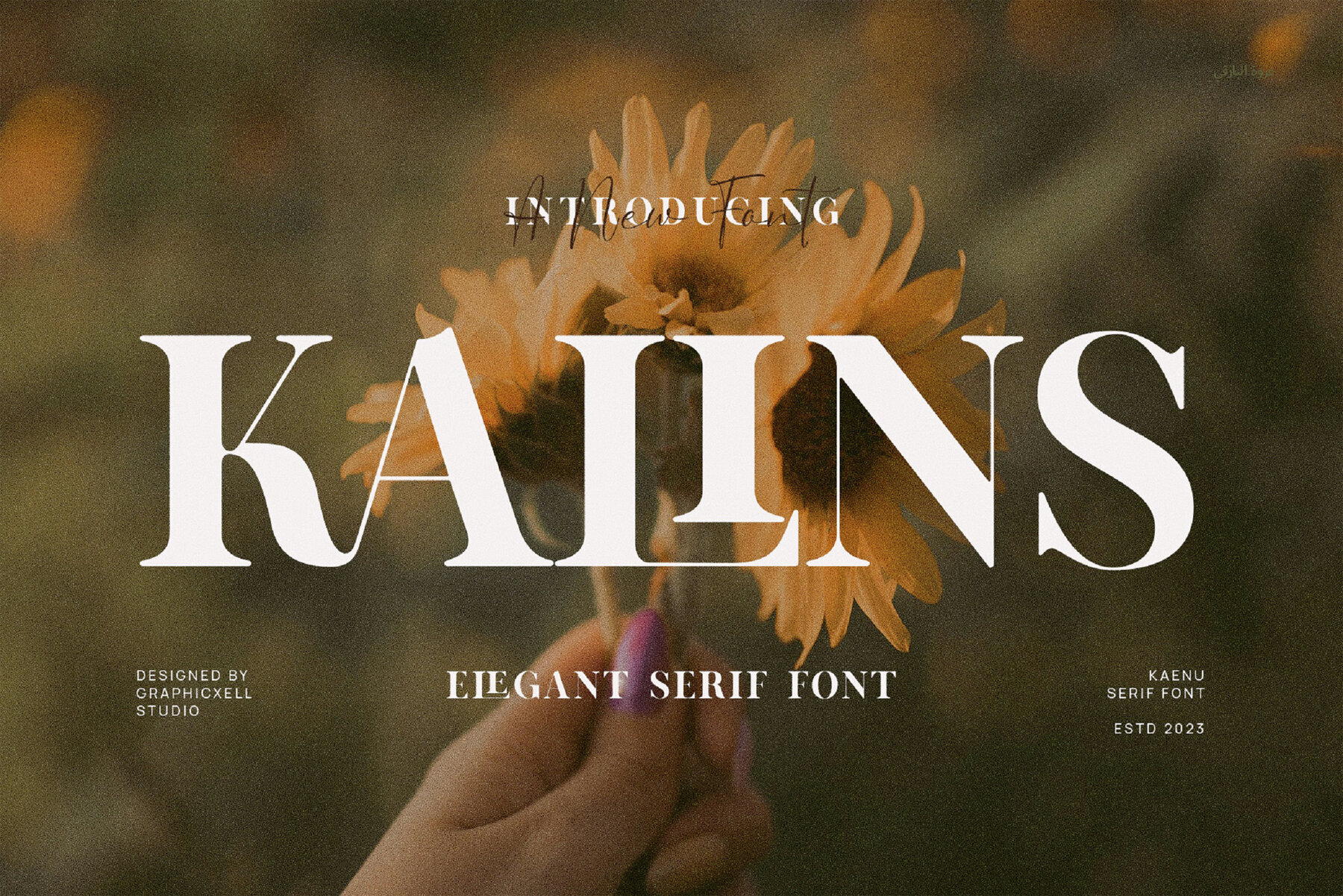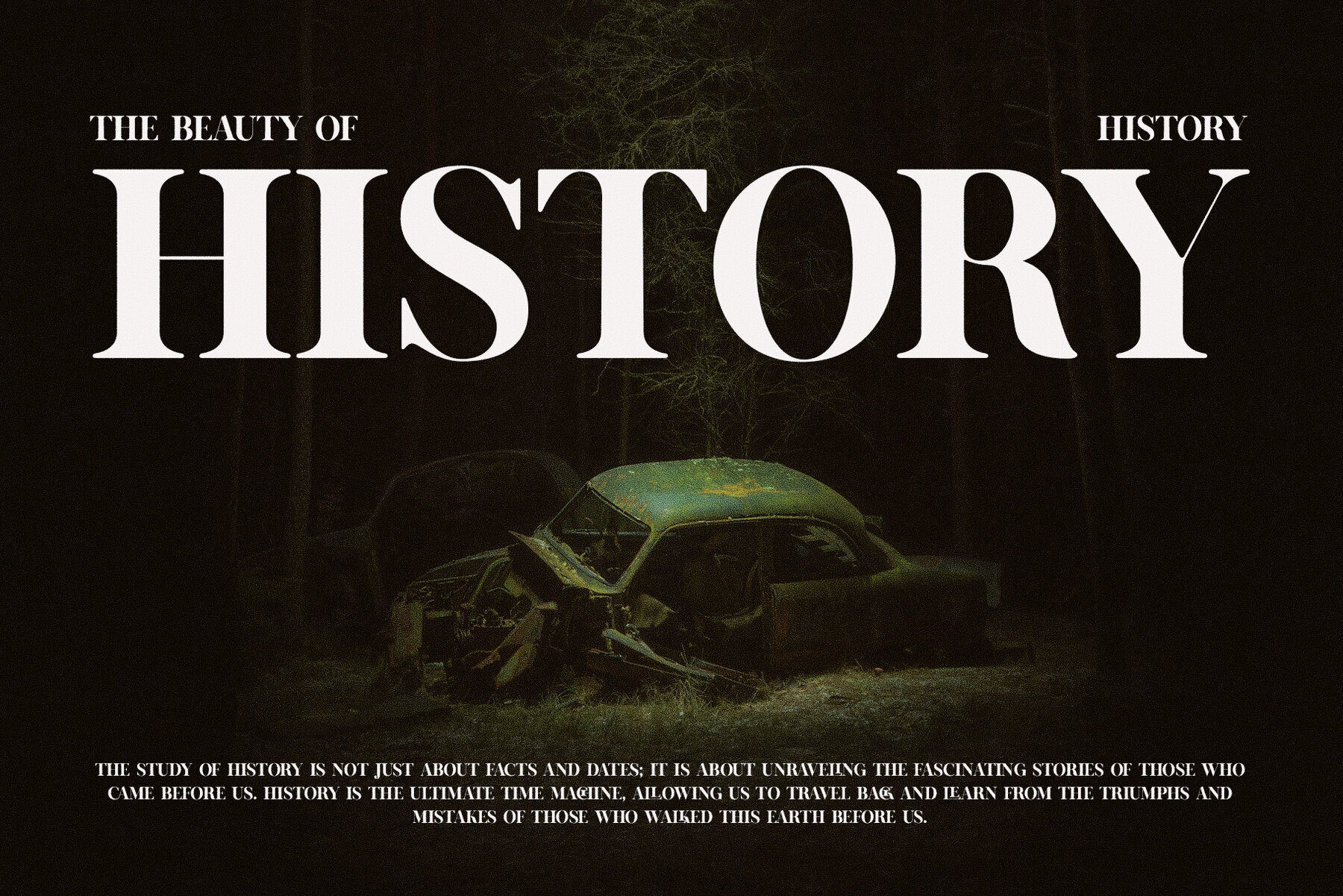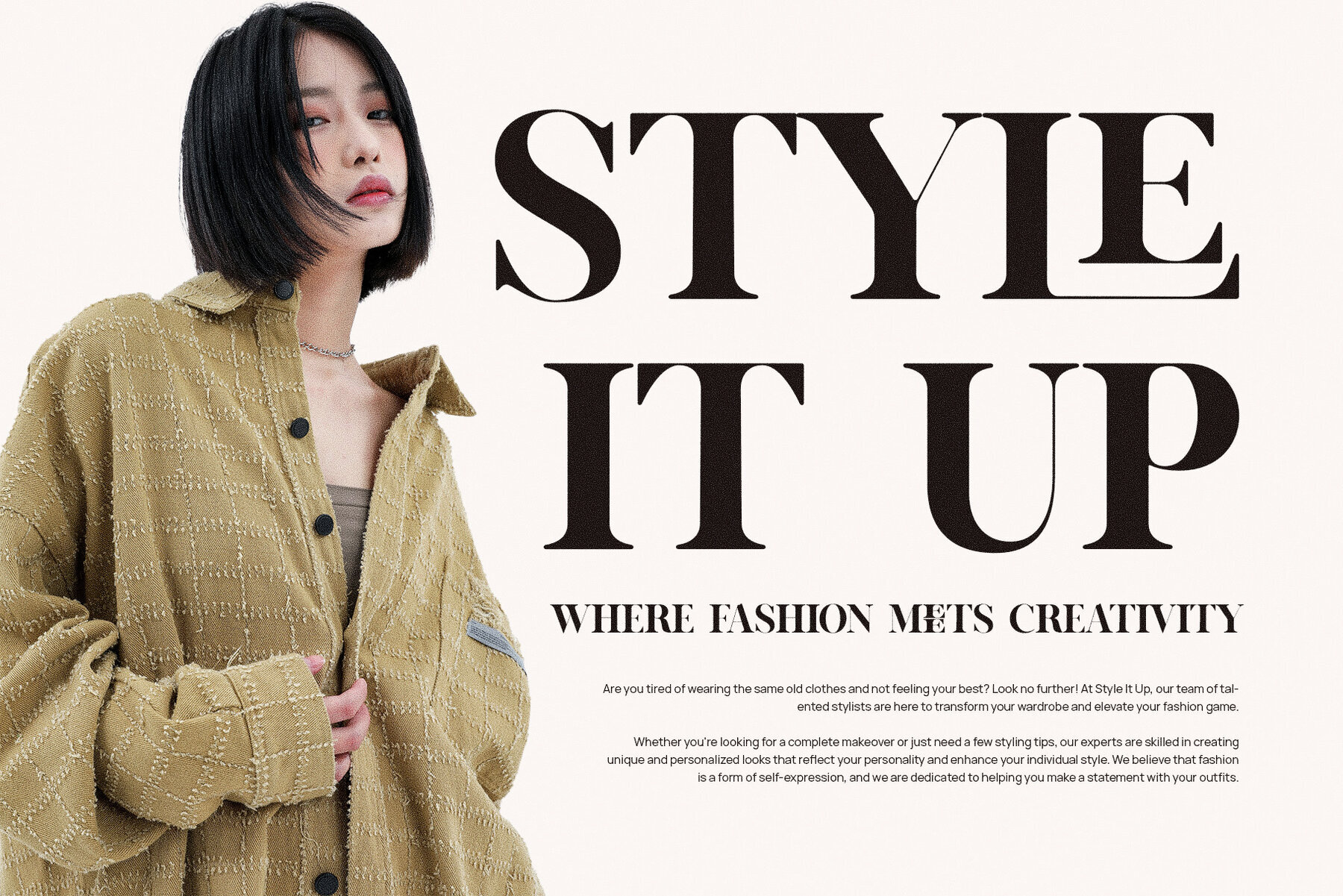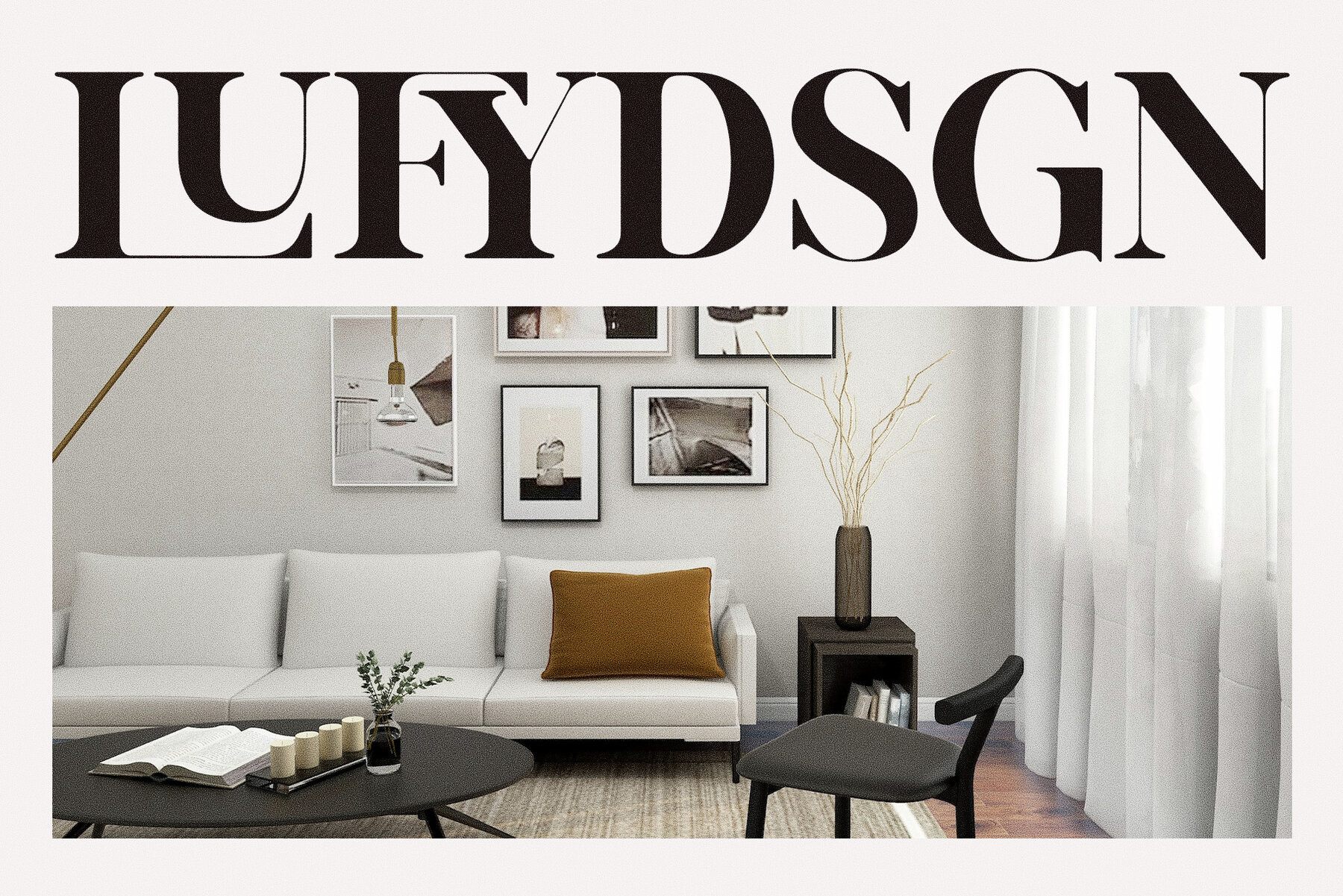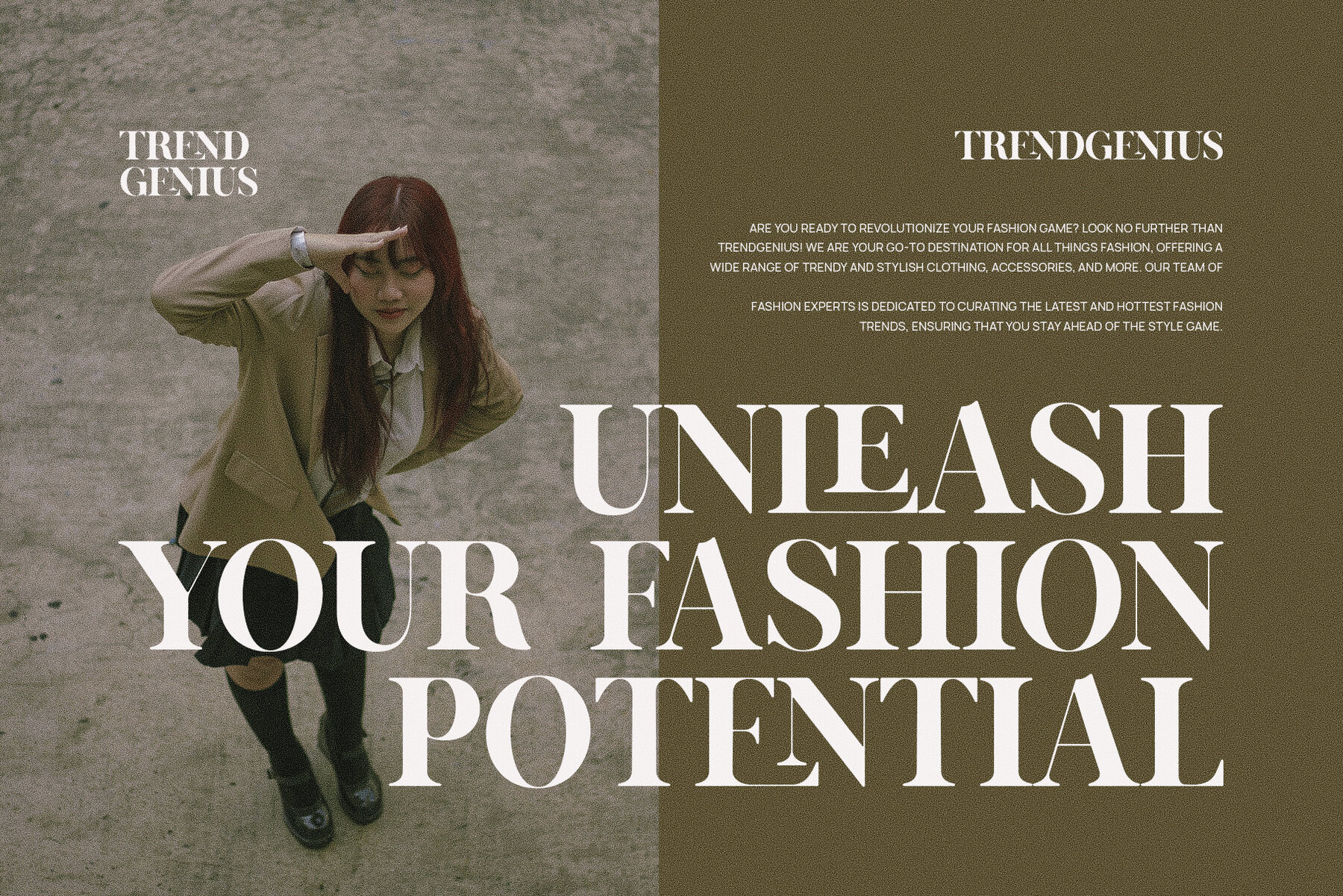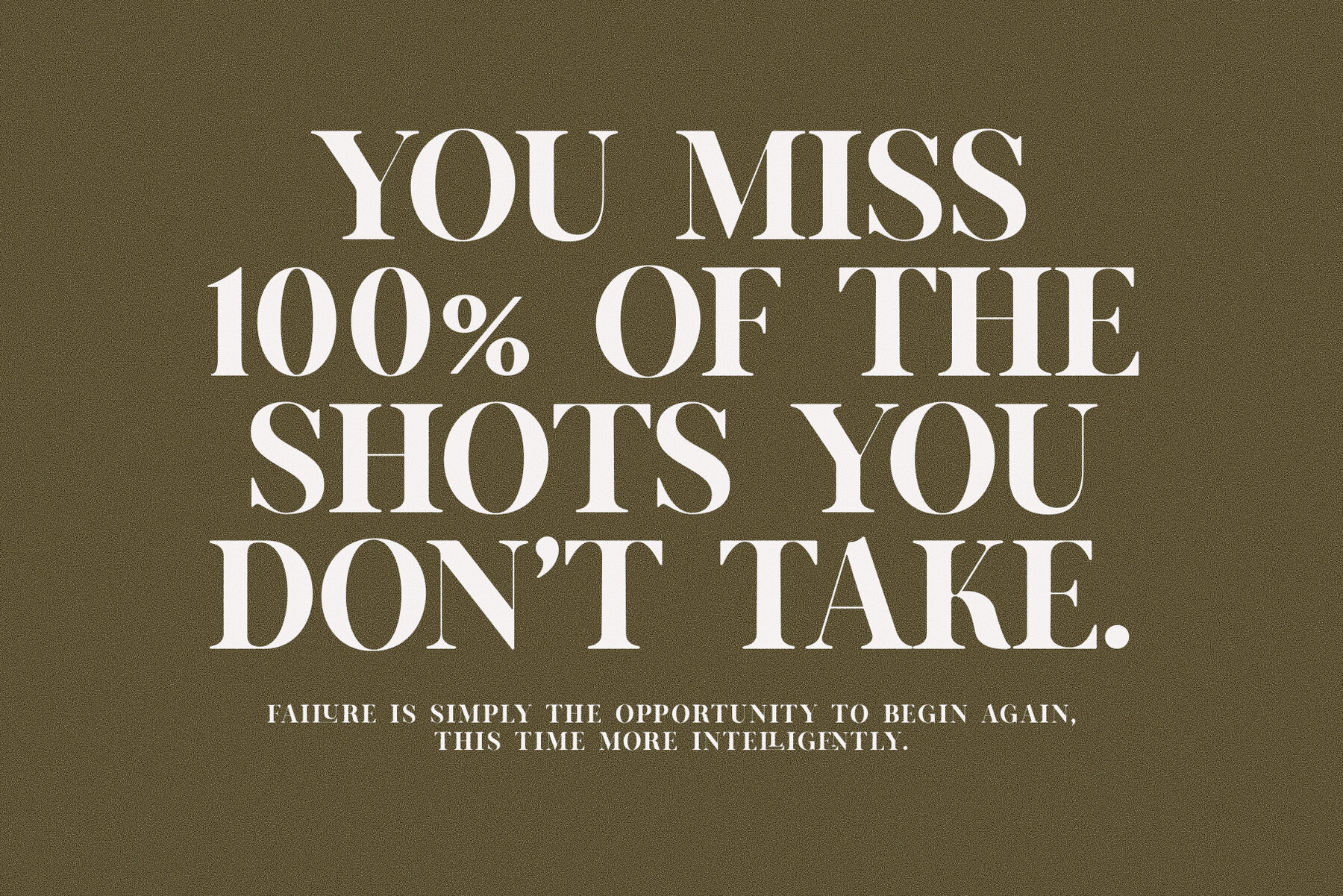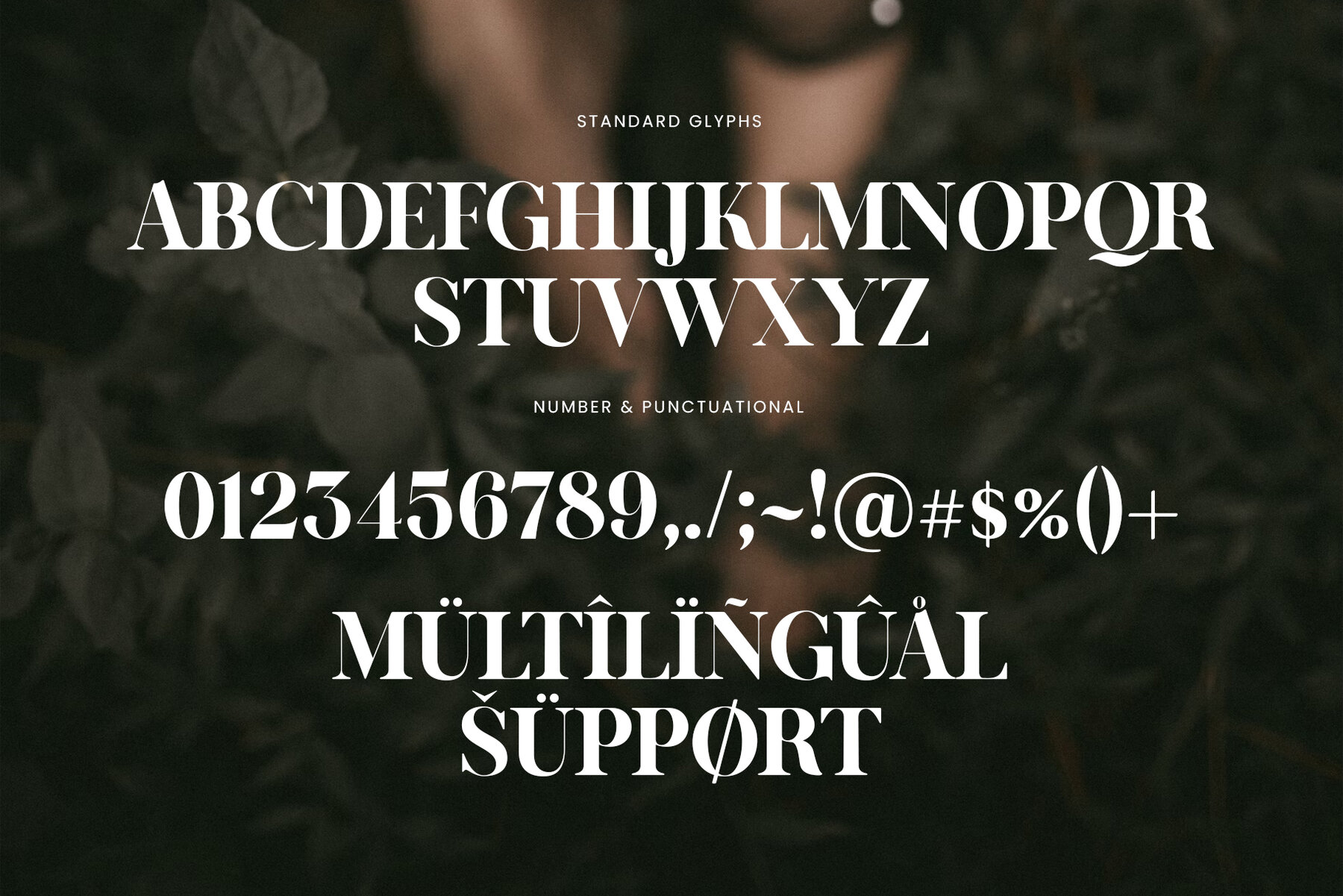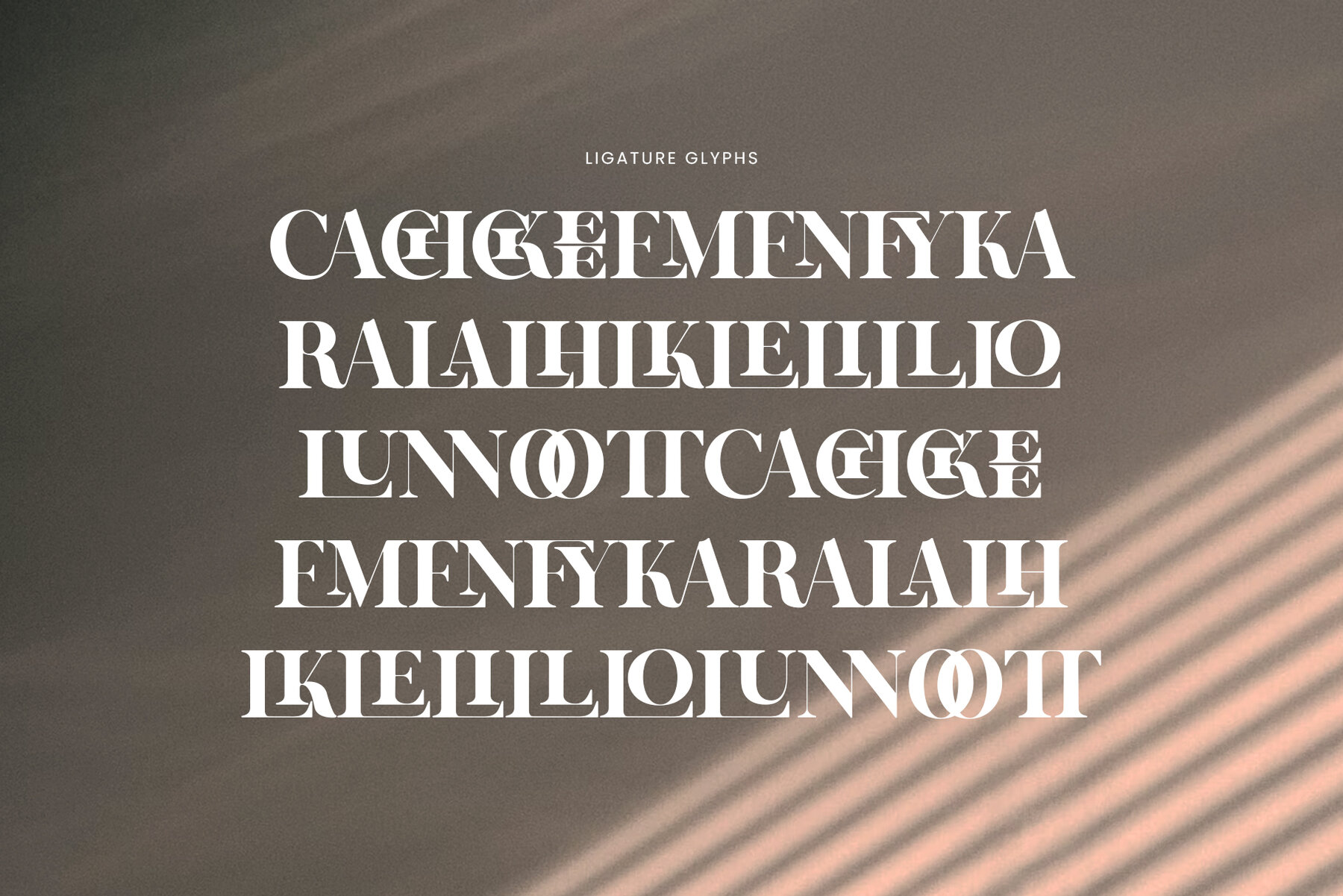
Kalins Font
Kalins Regular
Kalins is a uniquely elegant serif font that seamlessly combines classic charm with modern style, making it an ideal choice for branding and logo designs. Its refined typeface is perfect for a wide array of applications, including branding projects, logos, wedding designs, social media posts, advertisements, product packaging, product designs, labels, photography watermarks, invitations, and stationery. Crafted for high readability, Kalins is a dependable choice for any creative project. For the best experience while using Kalins, we recommend Adobe Illustrator or Adobe Photoshop. Should you have any questions or require assistance, feel free to reach out. We are happy to help.Kalins: Elegant Serif for Diverse Design Needs